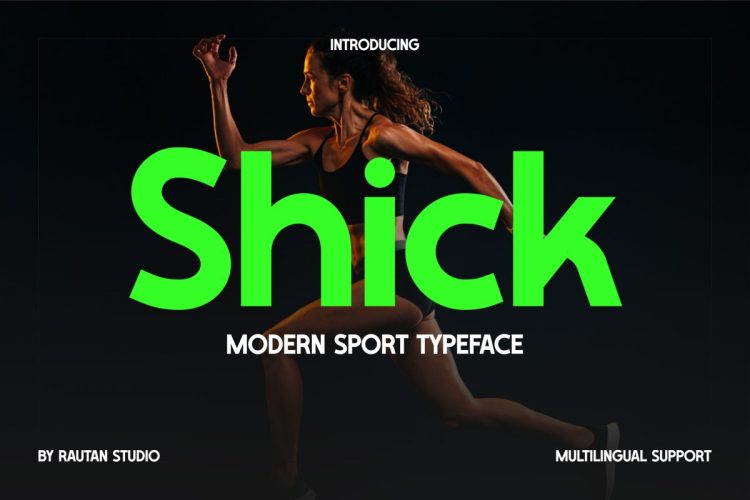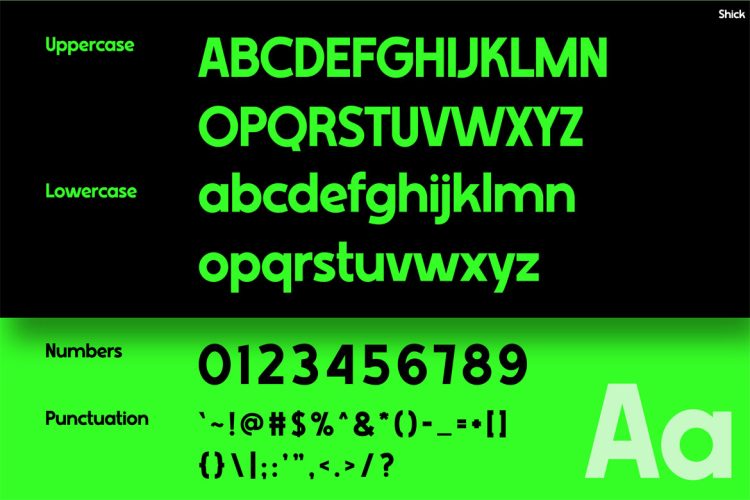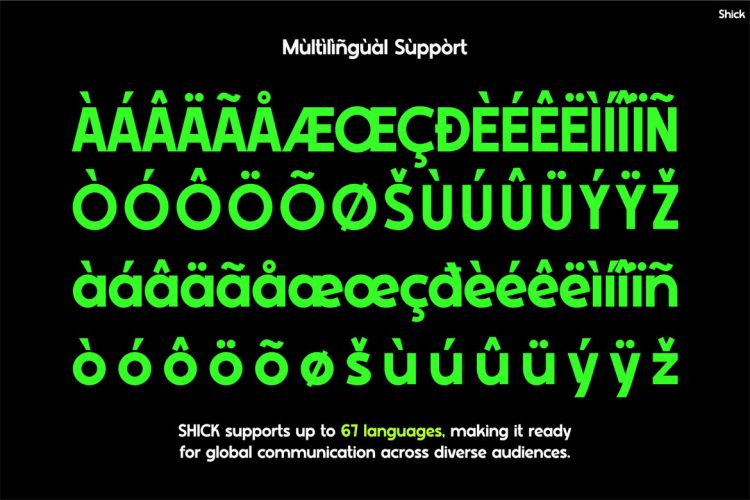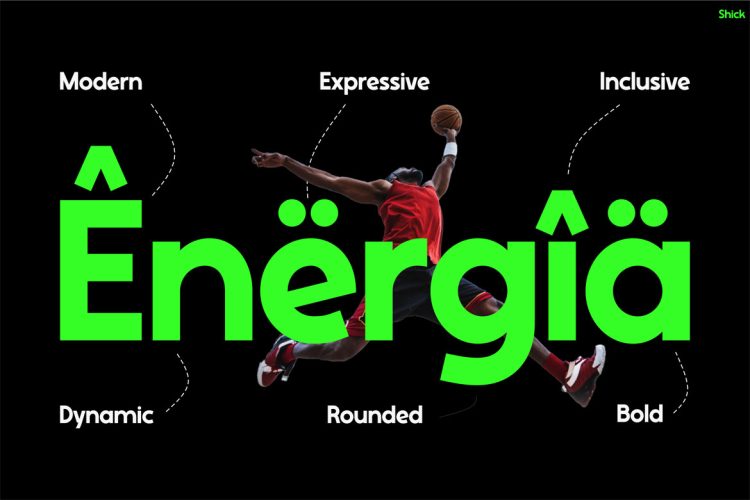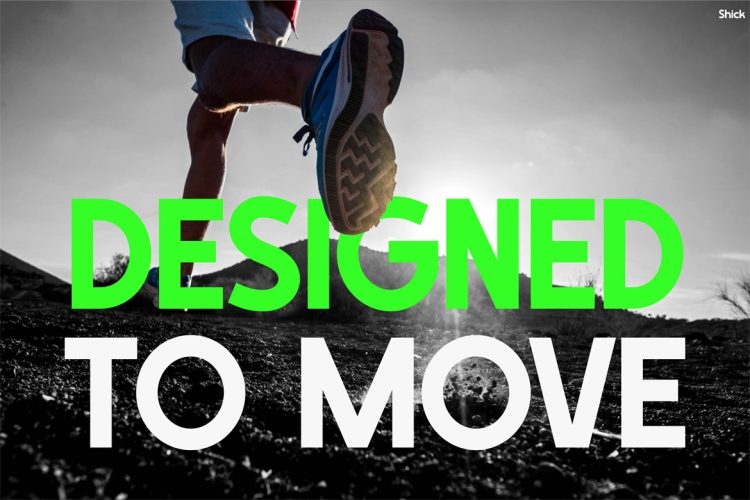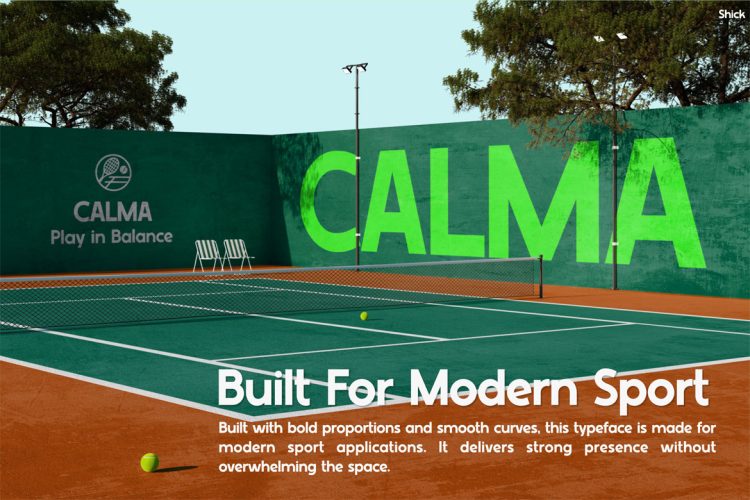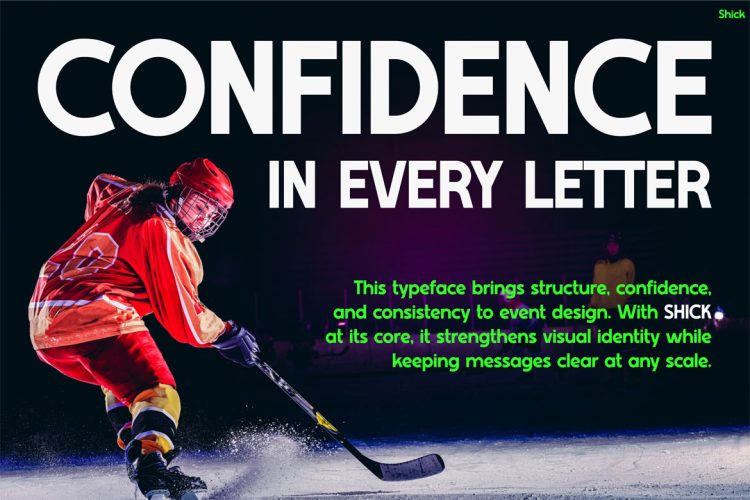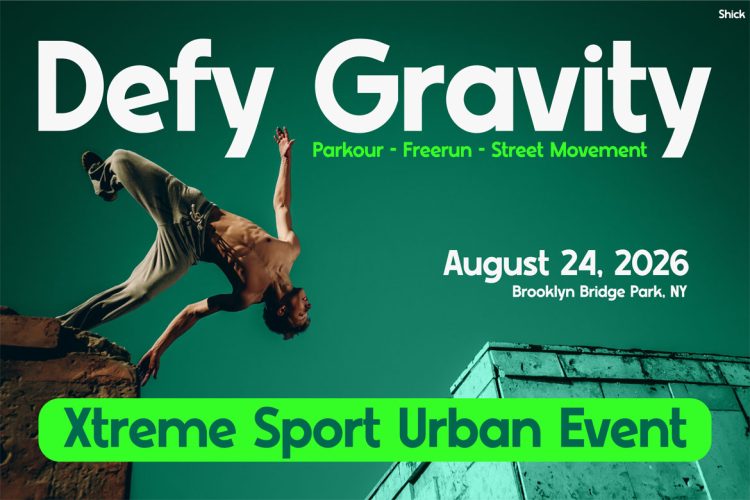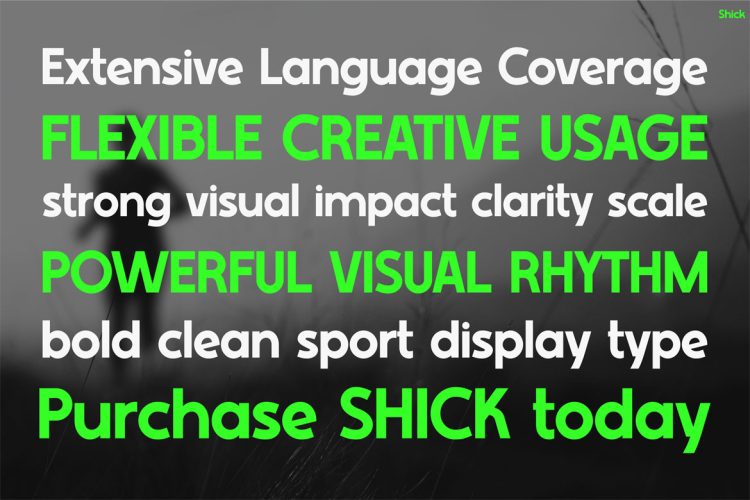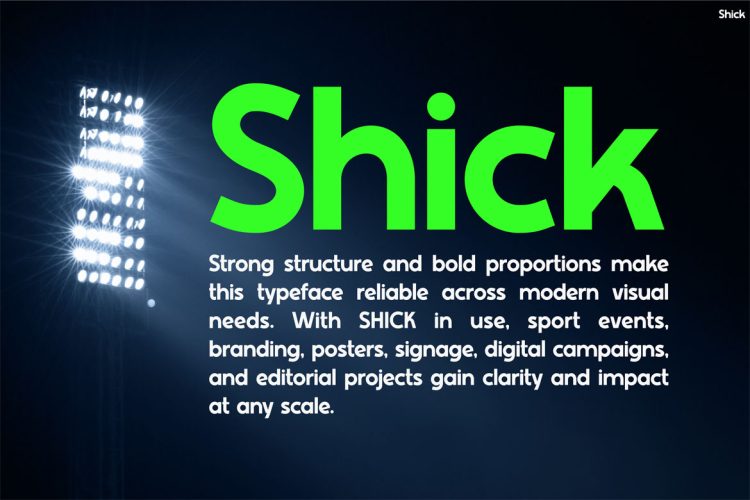
Futuristic Font Shick
Shick
Futuristic Font Shick โ€” Built to Move, Designed to Win
Futuristic Font Shick is a modern sport display typeface created to deliver power, speed, and visual confidence in every letter. From the first glance, this font communicates motion and energy through bold proportions, sharp geometry, and clean futuristic cuts. Its strong structure makes headlines feel fast and decisive, while the balanced spacing keeps text readable even at large scales. Inspired by athletic performance, urban sports culture, and modern technology, Shick blends strength with clarity. As a result, it works perfectly for designs that need to feel dynamic, confident, and forward-looking. Moreover, its contemporary aesthetic helps brands stand out in crowded visual spaces without feeling aggressive or cluttered. With support for 65 languages, Shick is also ready for global projects that demand consistency across regions.
Futuristic Font Shick is designed with a bold sport-driven character that emphasizes movement, rhythm, and impact. Each letterform features clean edges and solid weight, creating a powerful visual presence across digital and print media. In addition, the font maintains excellent legibility, even when used in fast-paced layouts or large-format designs. Because of its modern construction, Shick adapts well to posters, social media graphics, banners, and event branding. Furthermore, its expressive style adds confidence to headlines while still supporting short body text in promotional materials. The fontโ€™s flexibility allows designers to build energetic compositions that feel modern, sharp, and intentional. Most importantly, Shick delivers a strong personality without sacrificing usability.
Who Is It For?
Futuristic Font Shick is ideal for designers, brands, and creators who work with sport, fitness, and modern lifestyle visuals. It suits sportswear brands, fitness studios, gym promotions, and athletic events that need bold communication. Likewise, it works well for esports teams, urban festivals, extreme sports posters, and action-driven campaigns. Content creators and social media managers can also use Shick to create scroll-stopping headlines for Instagram, YouTube thumbnails, and digital ads. Additionally, agencies handling global projects will benefit from its 65-language support, ensuring consistent branding across international markets.
• Basic latin A-Z and a-z
• Multilingual Support (65 Languages)
Futuristic Font Shick is a bold modern sport typeface with strong rhythm, clean shapes, and 65-language support for high-impact designs.